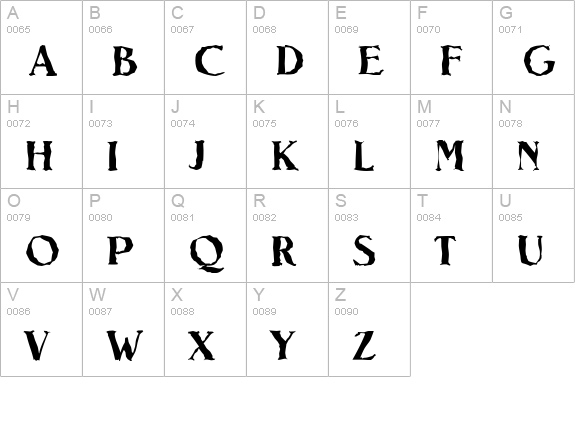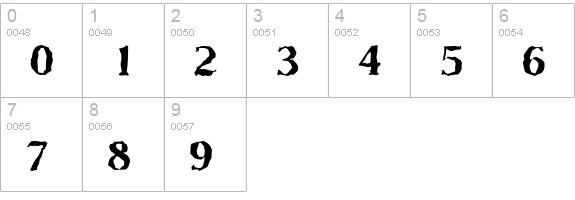
NevadaRandom-Bold Font Details
NevadaRandom-Bold is a strong, high-contrast variant in the NevadaRandom typeface family \xE2\x80\x94 well suited to headlines, attention-grabbing titles, and strong calls-to-action.
Introducing NevadaRandom-Bold font, a striking typeface that exudes confidence and modernity. With its bold and eye-catching design, this font is perfect for making a statement in your projects. NevadaRandom-Bold is versatile and can be used for various purposes, from logos to headlines to branding materials. What sets NevadaRandom-Bold apart is its unique combination of sharp edges and smooth curves, giving it a dynamic and contemporary look. This font demands attention and adds a touch of sophistication to any design. Best of all, NevadaRandom-Bold is available for free download at FontsMarket.com. Don't miss out on the opportunity to add this stylish and impactful font to your collection. Download NevadaRandom-Bold today and elevate your designs to the next level.